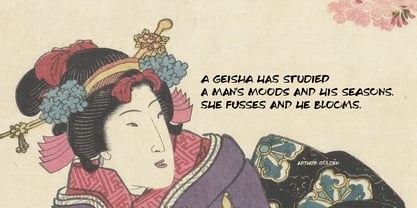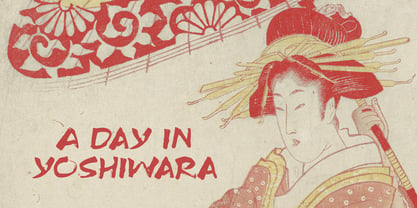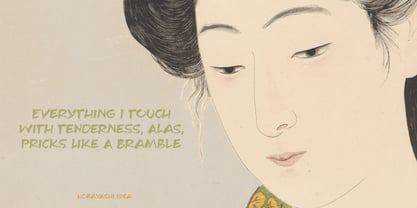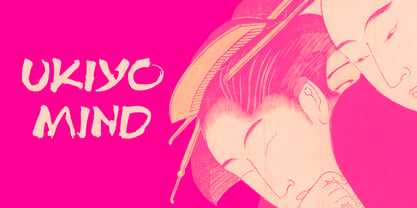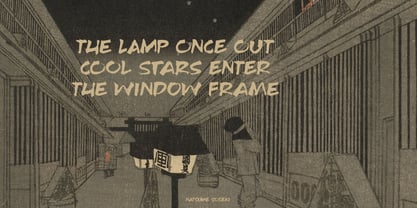
Ukiyo Mind Pro
by Hanoded
The Ukiyo Mind Pro Font Family was designed by David Kerkhoff and published by Hanoded. Ukiyo Mind Pro contains 2 styles and family package options. More about this family
By chance I stumbled upon an unfinished font in my fonts folder (while looking for something else). It had a stupid working name, but when I opened it, the font looked really nice! I have no idea why I never finished it.
I renamed it Ukiyo Mind, because the font looked a bit like Japanese brush strokes.
Ukiyo is a Japanese term which roughly translates as ‘the fleeting/transient world’. In mediaval Japan, the word was associated with Buddhism, but later it was used to describe the urban lifestyle and the pleasure seeking aspects of it. Nowadays it refers to a ‘living in the moment’ state of mind.
Ukiyo Mind is a really nice brush font, which I probably made using Chinese ink and a brush. It comes with extensive language support and a set of alternates for the lower case glyphs.
Designers: David Kerkhoff
Foundry: Hanoded
Hanoded is run by Dutchman David Kerkhoff. His fonts are a mishmash of styles, as he just creates whatever pops into his head. You will find a lot of brush fonts in his collection, as his favourite tools are brushes and Chinese ink, with cartoon style fonts and script fonts complementing his repertoire. Aside from making fonts, David occasionally guides tours in far-flung places, renovates his '30's house and tries reasoning with his wife and (teenage) kids. Not an easy task!